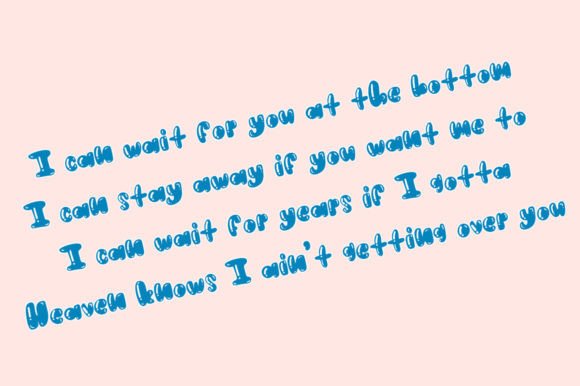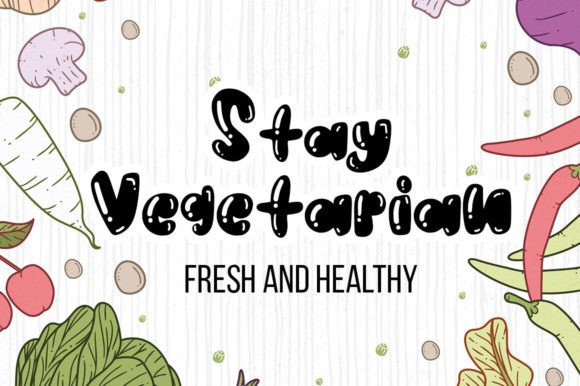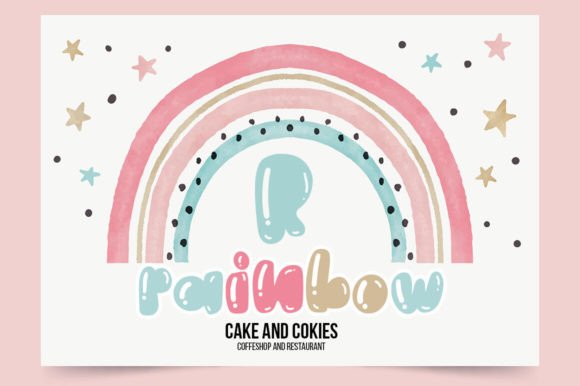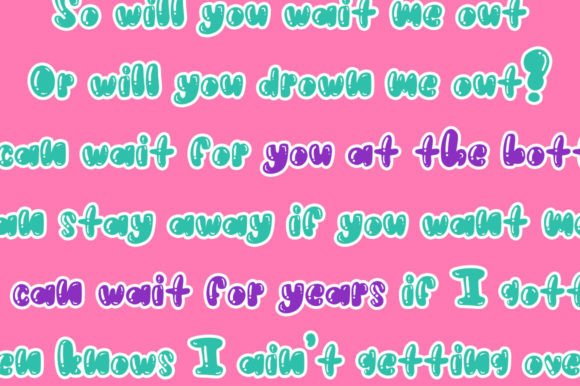
The Joy of Design: Introducing Bubblegum Font
Have you ever sat at your desk, surrounded by scattered papers, glue sticks, and colorful markers, trying to come up with the perfect design for a children’s book or a school project? The pressure is on, but the excitement is palpable. As you search for the perfect font to bring your creation to life, you stumble upon a little secret that’s sure to put a smile on your face.
Enter the delightful Bubblegum Font, a charming display font that embodies the spirit of playfulness and authenticity. With its chunky letters and vibrant colors, this font is the perfect addition to any design that needs a touch of whimsy and fun. Whether you’re creating a logo for a kids’ club or designing a poster for a school event, Bubblegum Font is the perfect choice to make your designs stand out.
Bubblegum Font Key Features
- Font Family: Bubblegum, Bubblegum Italic, Bubblegum Bold, Bubblegum Bold Italic
- Font Size: 128 glyphs, with a wide range of characters and symbols for creative expression
- Unique Characteristics: Whimsical, playful, and fun design; ideal for creative projects, children’s materials, and entertainment branding
Bubblegum Font Review
Overall, I’d say the Bubblegum font has some great qualities, but it’s not perfect. ✨ Let’s dive in and see what works well.
- Fun and playful vibe: The Bubblegum font is perfect for adding a lighthearted touch to your designs. It’s great for kids’ content, food brands, or any project that needs a bit of whimsy.
- Easy to read: Despite its playful nature, the font is still easy to read, making it a great choice for body text.
However, there are some limitations to consider ⚠️:
- Lack of versatility: The Bubblegum font is quite distinctive, which can be a good thing, but it might not be the best choice for projects that need a more neutral tone.
- Not ideal for formal content: The font’s playful nature makes it less suitable for formal or professional projects.
Overall, I’d say the Bubblegum font is a great choice for the right project, but it’s not a one-size-fits-all solution. With its fun vibe and ease of readability, it’s perfect for projects that need a bit of personality. Just be mindful of its limitations, and you’ll be golden.
Tips for Getting the Most Out of Bubblegum Font
Use Bubblegum Font for playful and fun designs, such as:
- Children’s party invitations
- Food and drink branding
- Summer-themed designs
Experiment with different font sizes and colors to create a unique and eye-catching design.